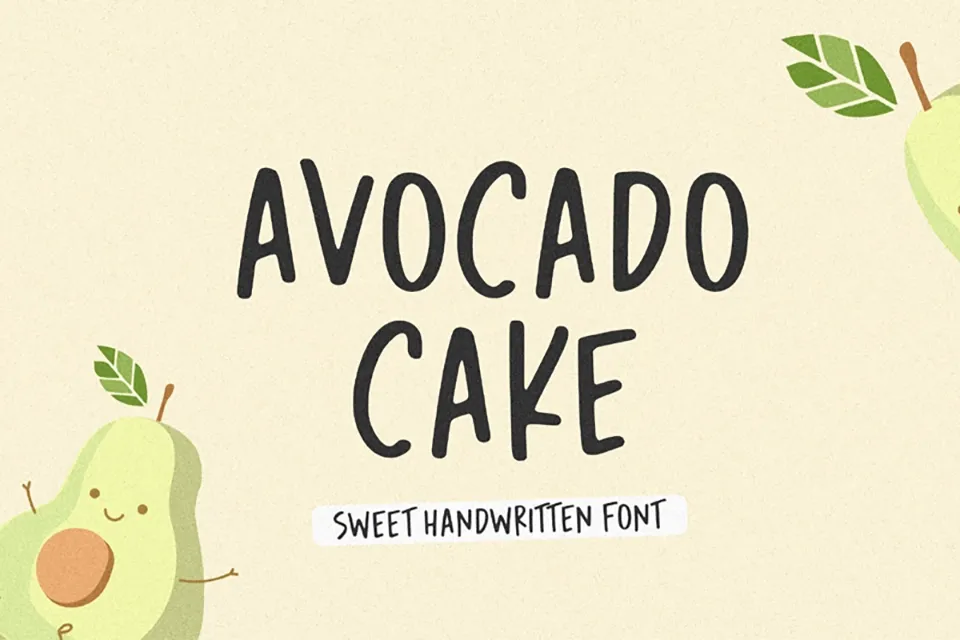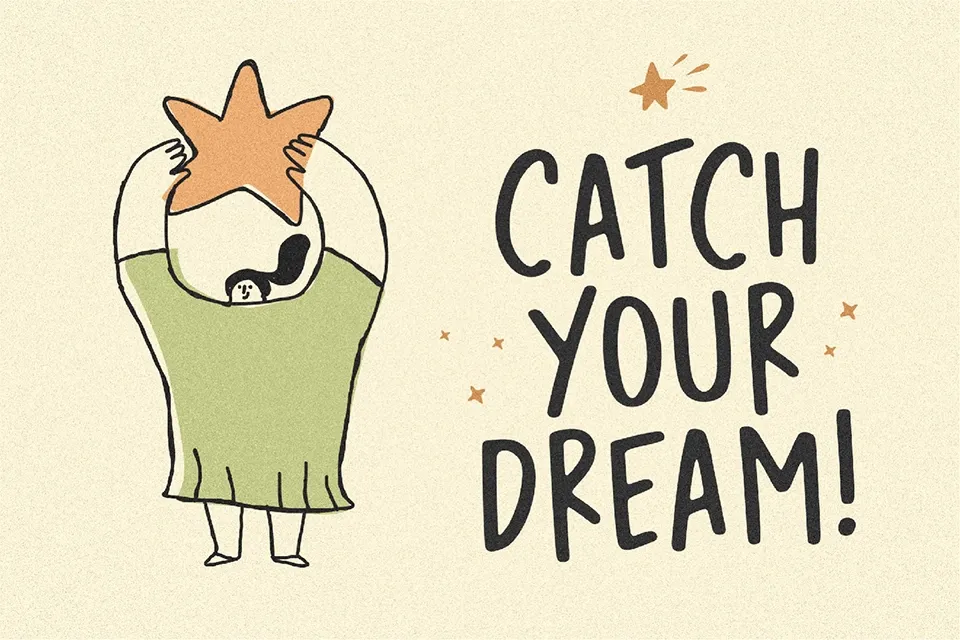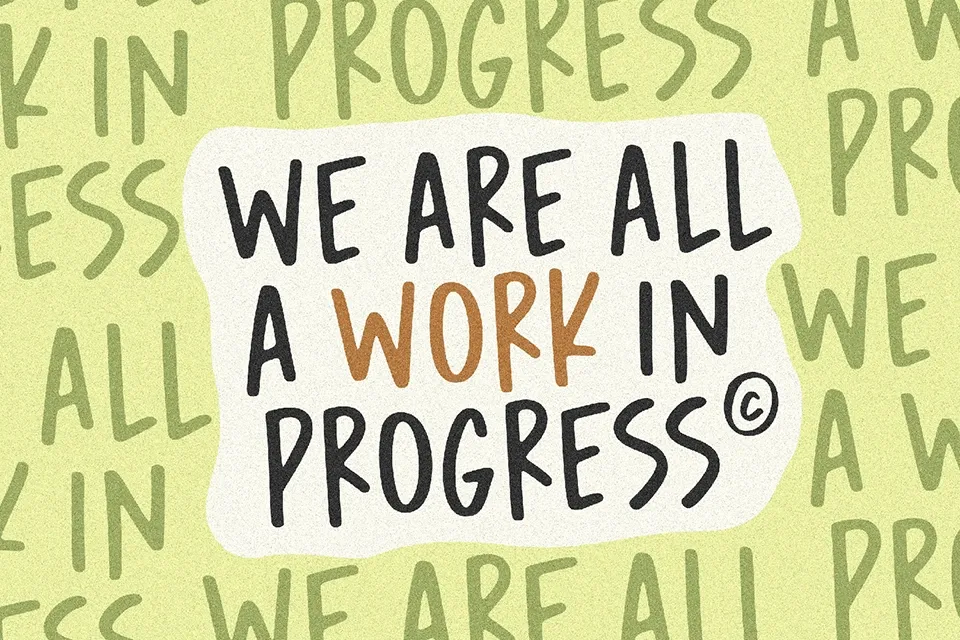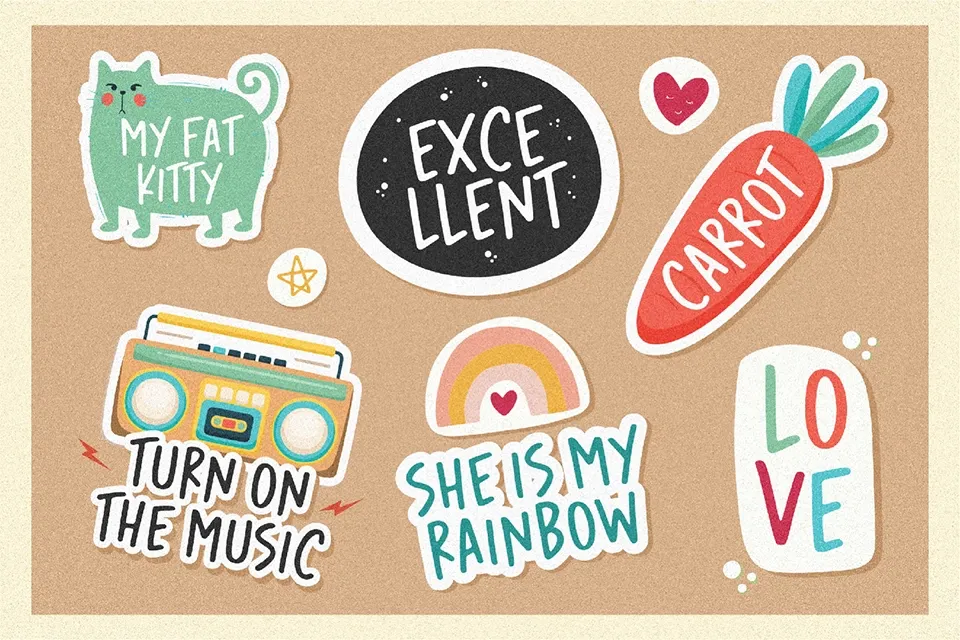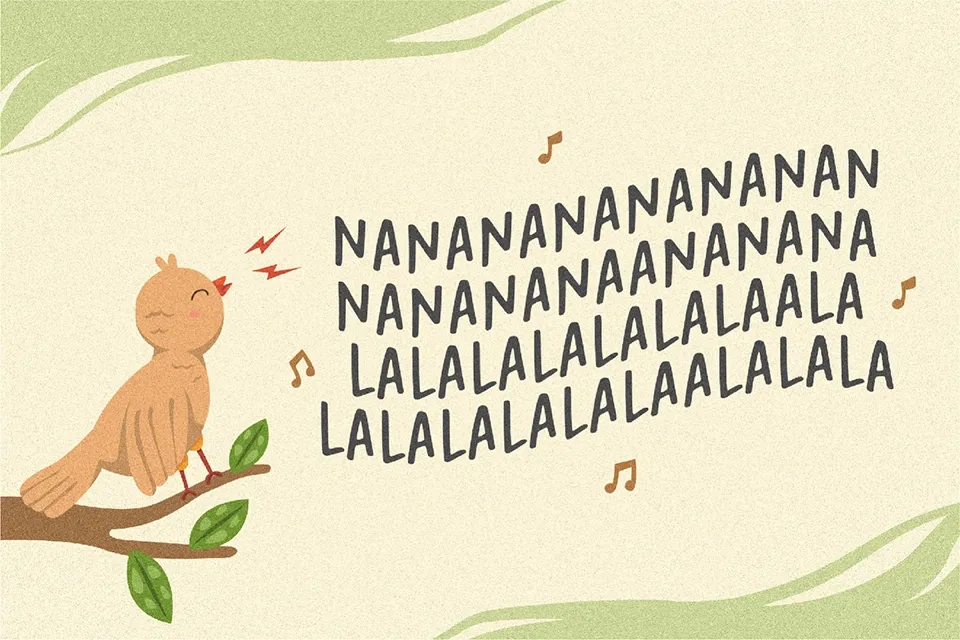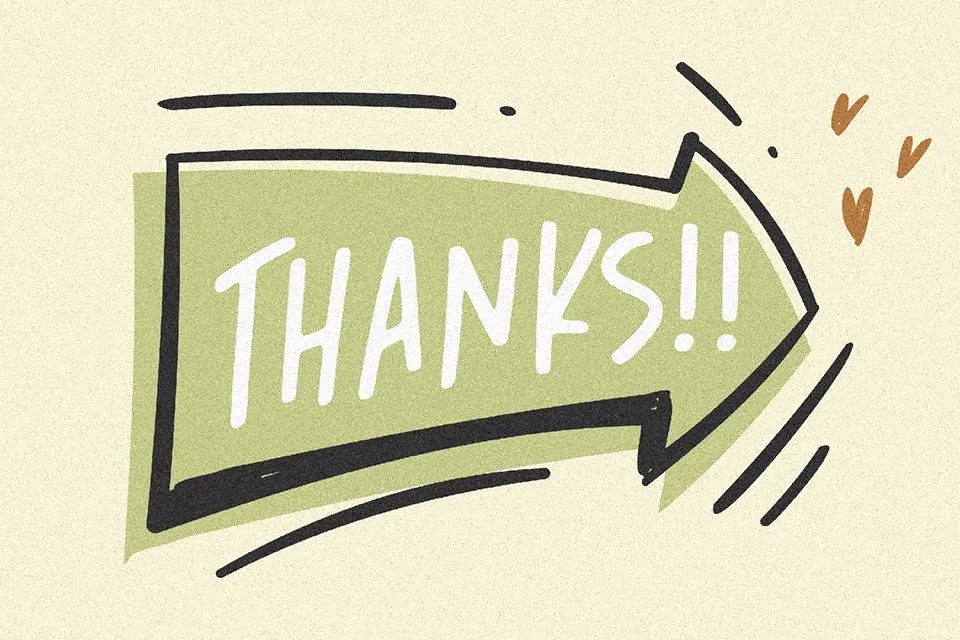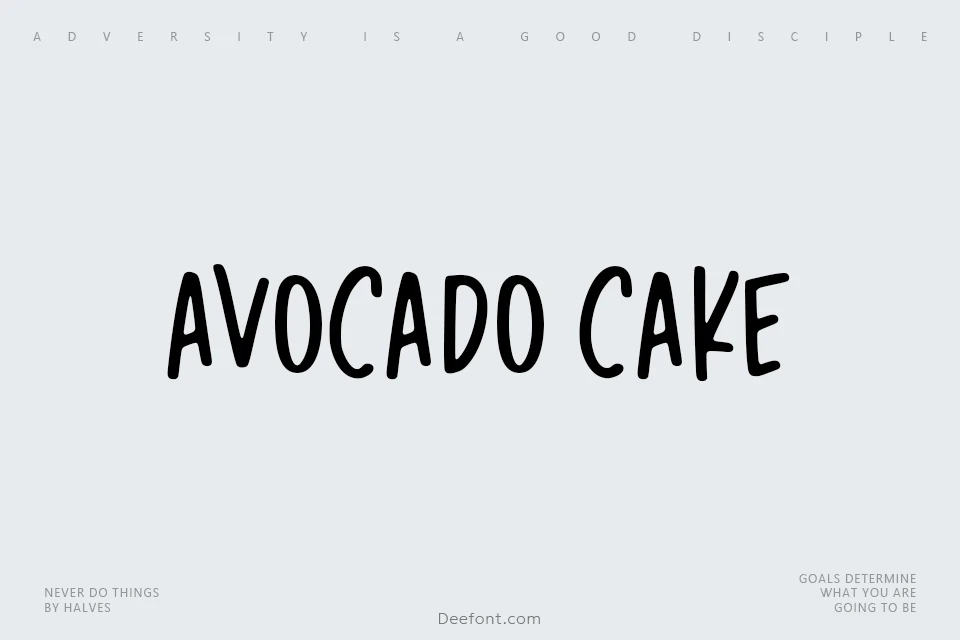
Avocado Cake Font
Avocado Cake Font is a fun and cheerful handwritten display font, perfect for handwriting logos, T-shirts, merchandise, quotes, social media posts, advertising, and more. It features accent language support and ligatures, making it versatile for a wide range of creative projects. Please note that the demo version is for personal use only; a commercial license is required for business purposes.